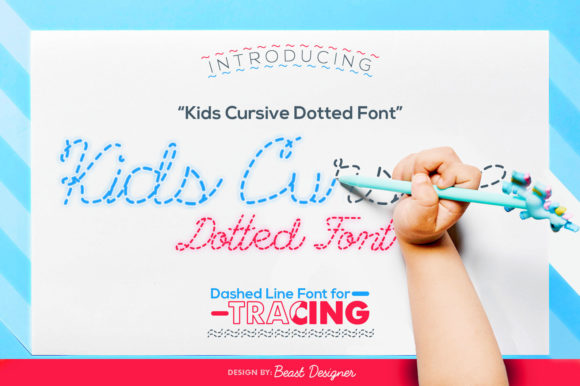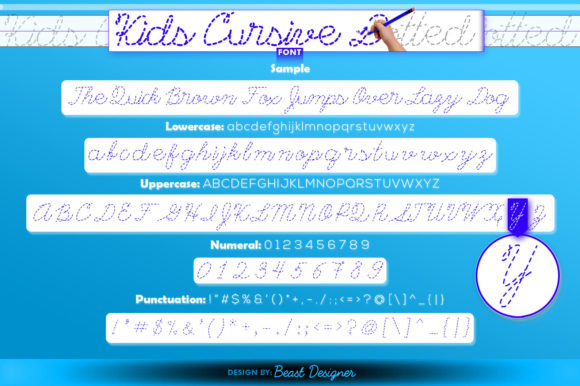
Kids Cursive Dotted Font
About the Kids Cursive Dotted Font
Welcome to the world of Kids Cursive Dotted Font, a typeface that will inspire your next great project. Kids Cursive Dotted is an incredibly interesting dashed display font. It was designed especially for letter tracing worksheet for preschoolers, but it could be employed to a variety of other designs. Add it to your portfolio of fonts and it will soon become your favorite option no matter the creation!
This font’s playful, dotted style is ideal for children’s books, educational materials, branding for children’s products, and playful invitations. It works well in headlines, short slogans, and decorative elements, adding a touch of youthful energy. However, its low readability makes it unsuitable for body text or lengthy passages.
Kids Cursive Dotted pairs well with clean sans-serif fonts like Open Sans for body text, providing a nice contrast between the playful display and easily readable content. For a more sophisticated feel, consider pairing it with a classic serif like Garamond or a slightly more modern serif such as Lato.
The overall personality is undeniably fun and friendly, making it perfect for projects targeting a younger audience or requiring a lighthearted and approachable aesthetic. Avoid using it in contexts demanding seriousness or sophistication.
Kids Cursive Dotted Font Usage Examples
Kids Cursive Dotted Font Example